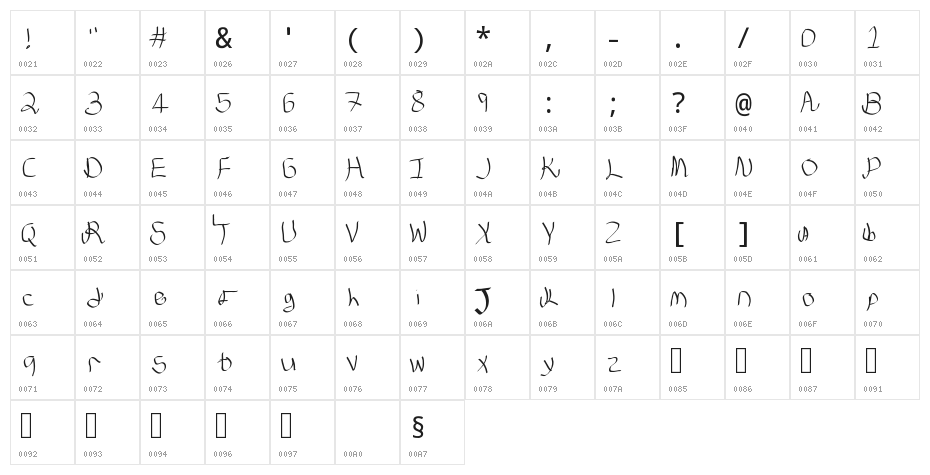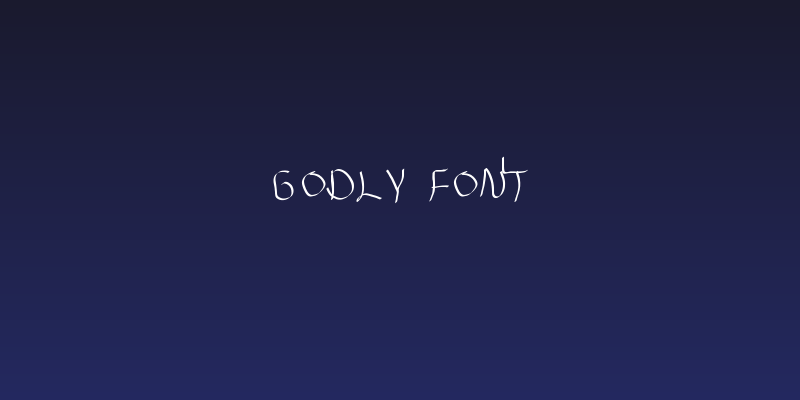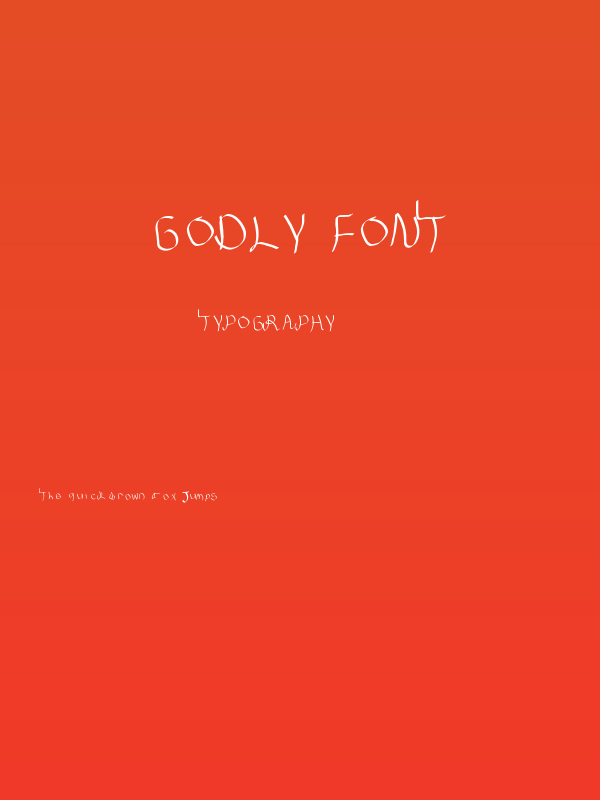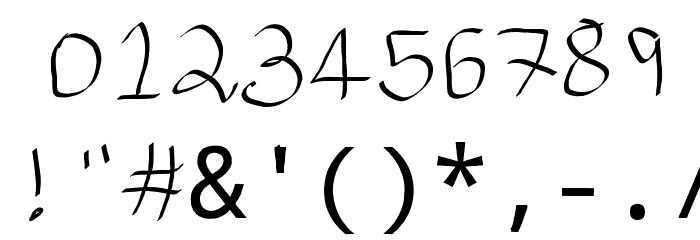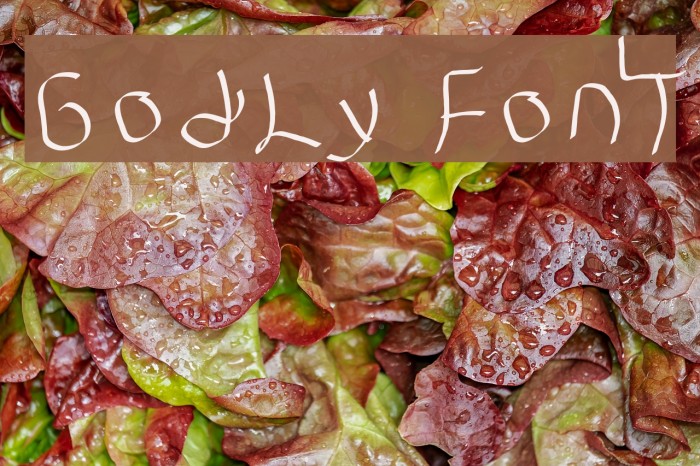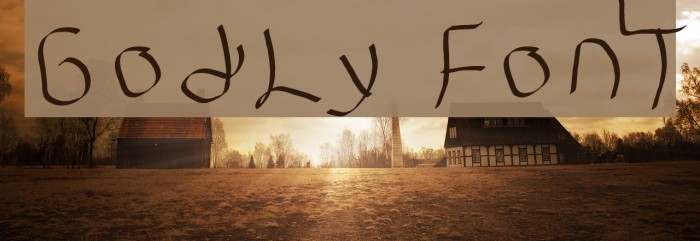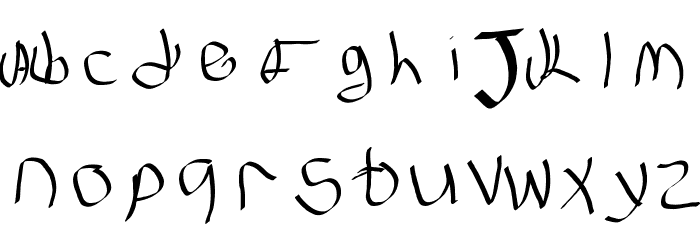
GodLy FonT Font
GodLy FonT Description
This font features a unique and artistic handwritten style, characterized by its irregular and flowing strokes. The letters have a playful and informal appearance, with varying line thickness that adds a dynamic and lively feel. The uppercase and lowercase letters maintain a consistent style, while the numerals and special characters complement the overall aesthetic. This font exudes a sense of creativity and spontaneity, making it suitable for projects that require a personal and expressive touch.
| Overall Style | Artistic |
| Use Case | Logos, Posters, Invitations |
| Proposed Projects | Ideal for greeting cards, personal branding, artistic posters, and creative invitations. |